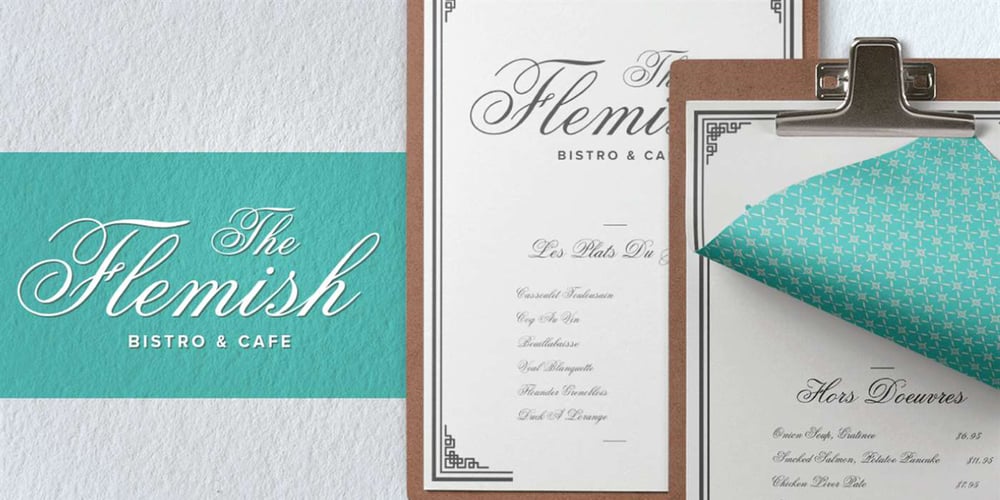
Flemish Script Font Family was designed by published by Bitstream. Flemish Script contains 1 styles and family package options. An ornate roundhand with looped ascenders and strongly flourished capitals prepared at Photon for their phototypesetters about 1960.